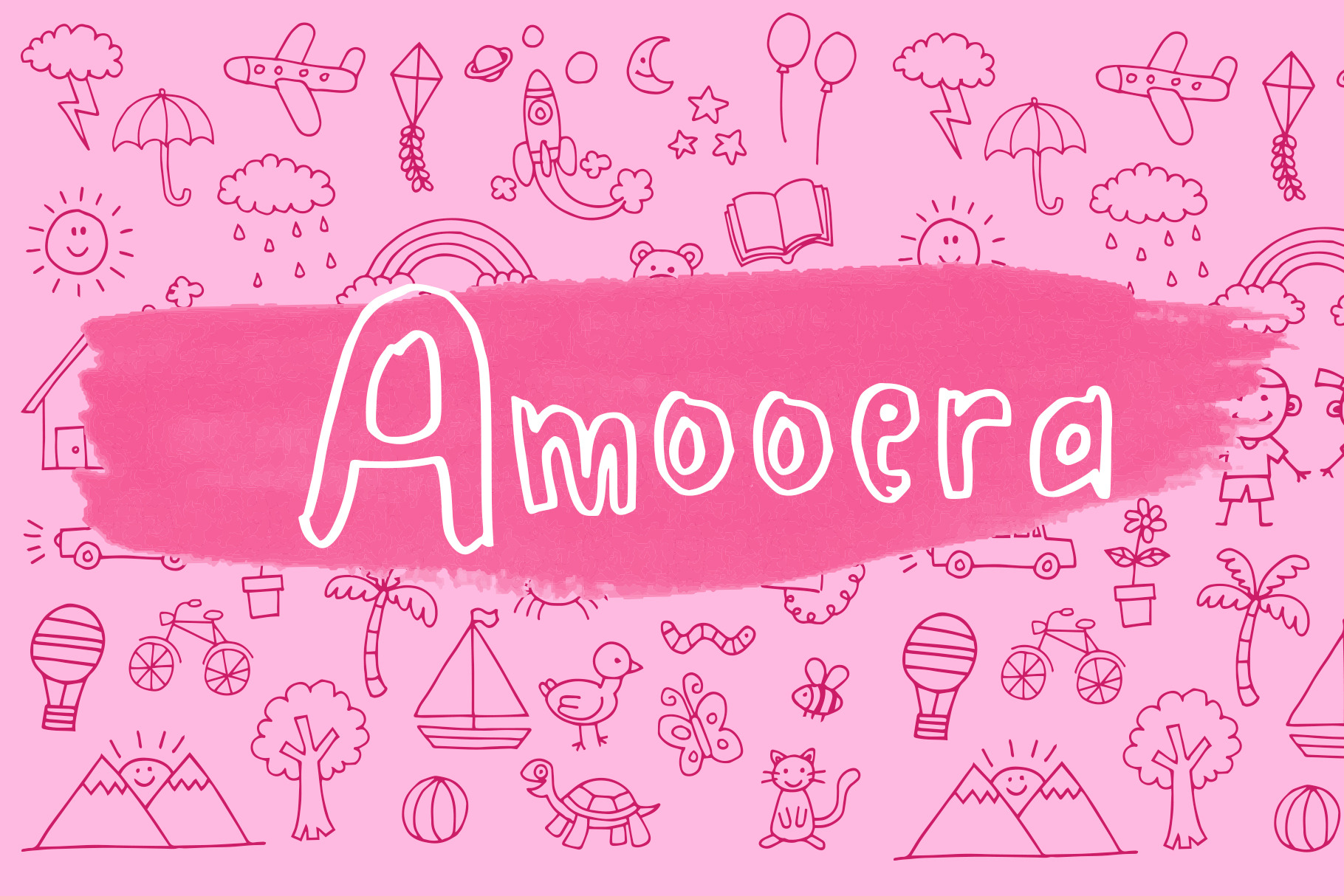
Amooera Handdrawn font childish fun
Sans serif hand-drawn display font called Amooera was designed for childish and other style also fit for Kids story and book.